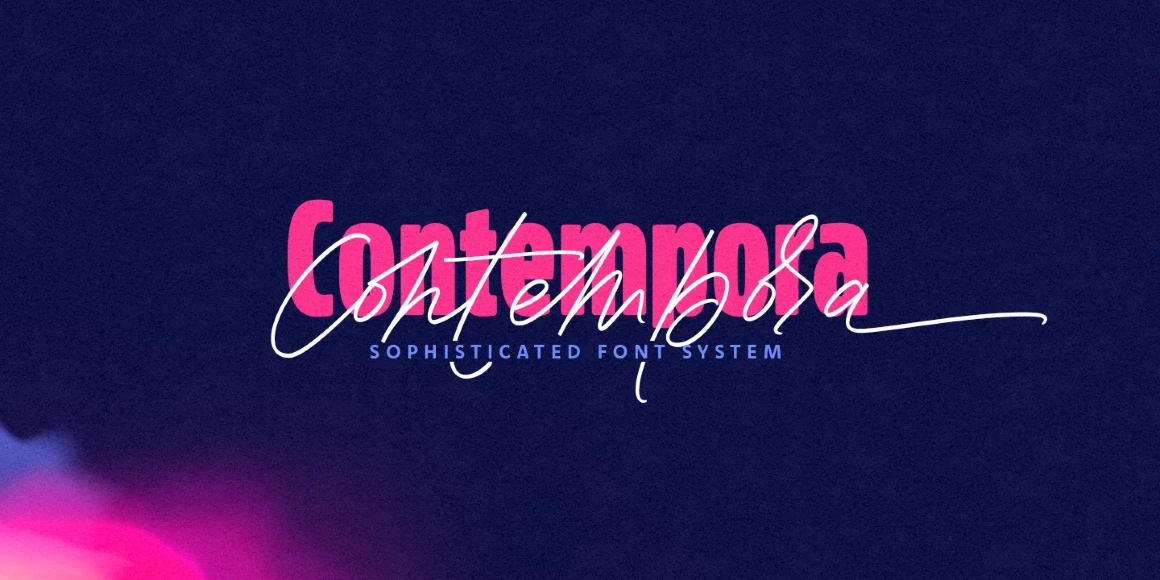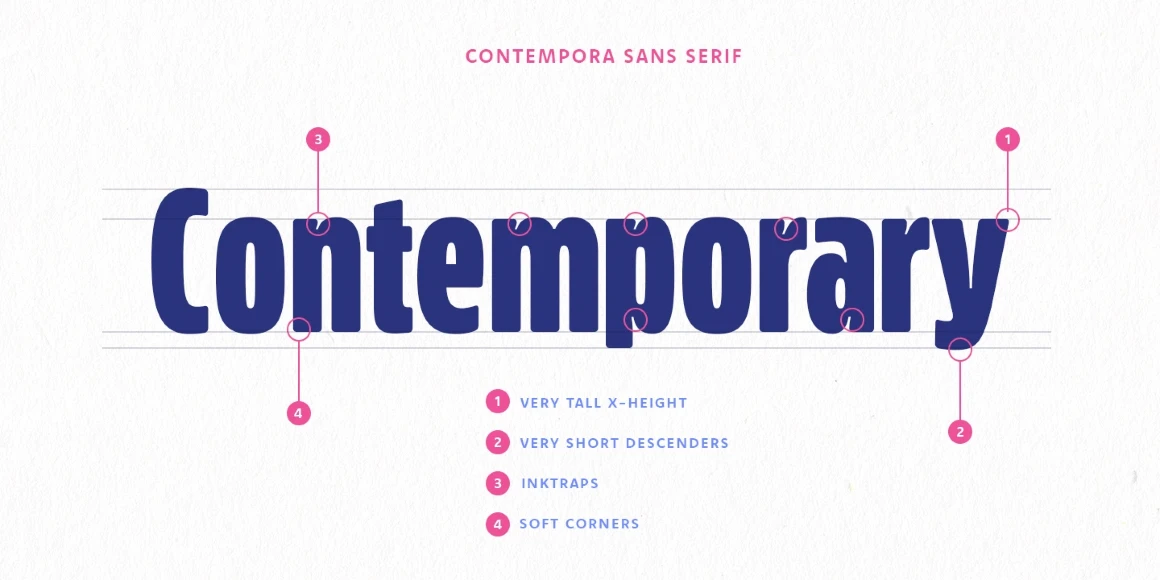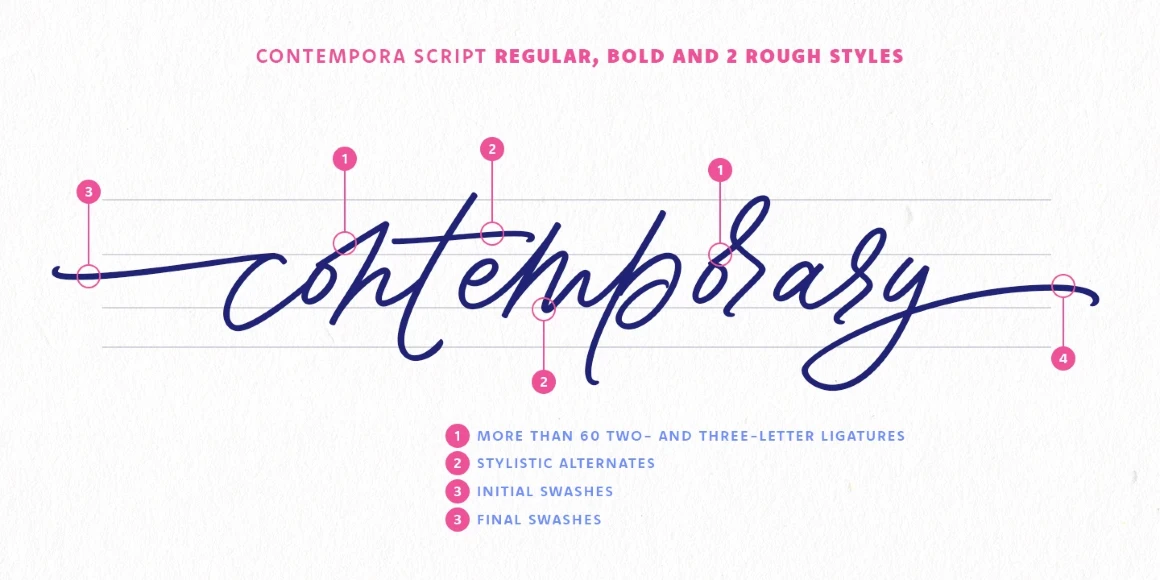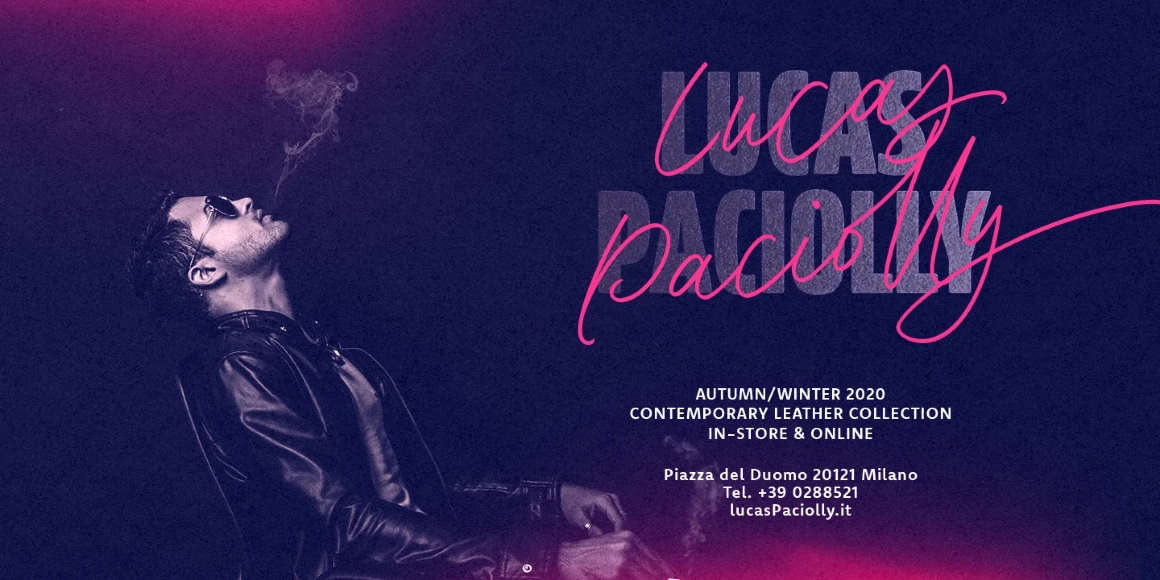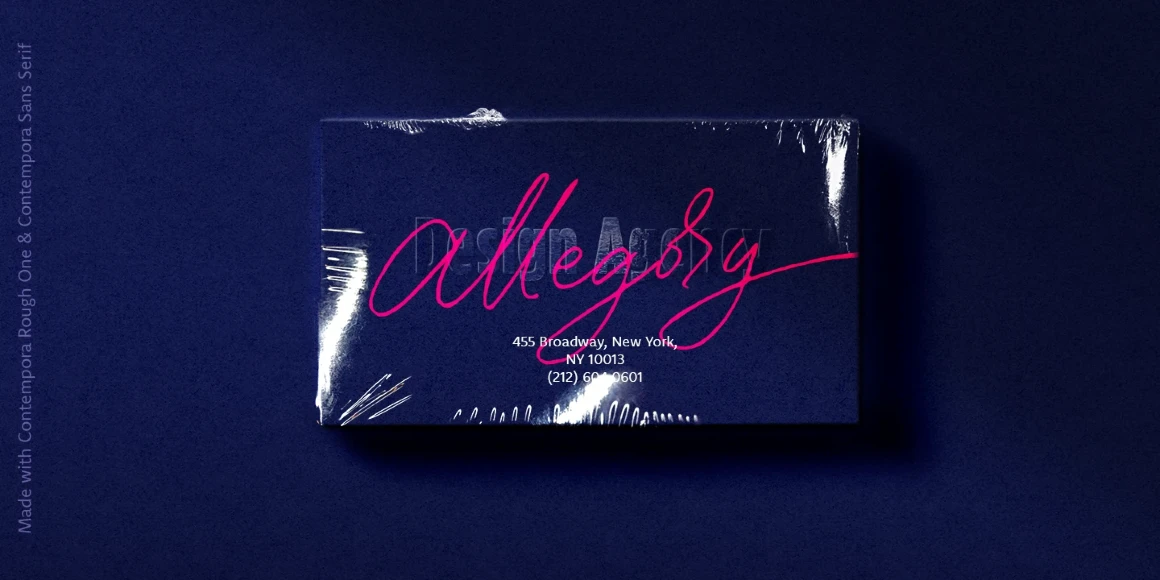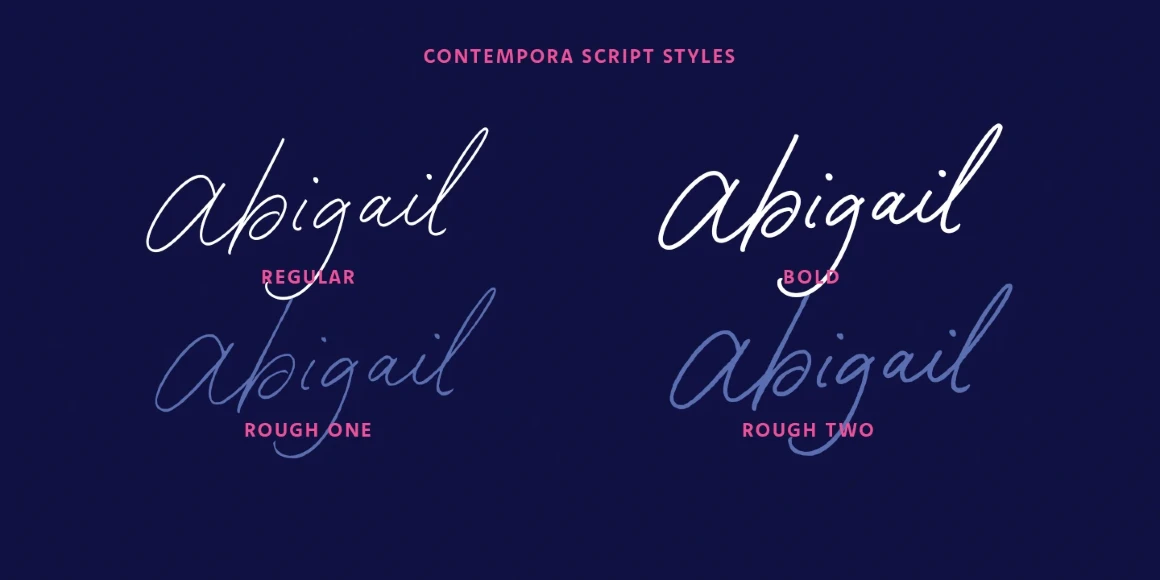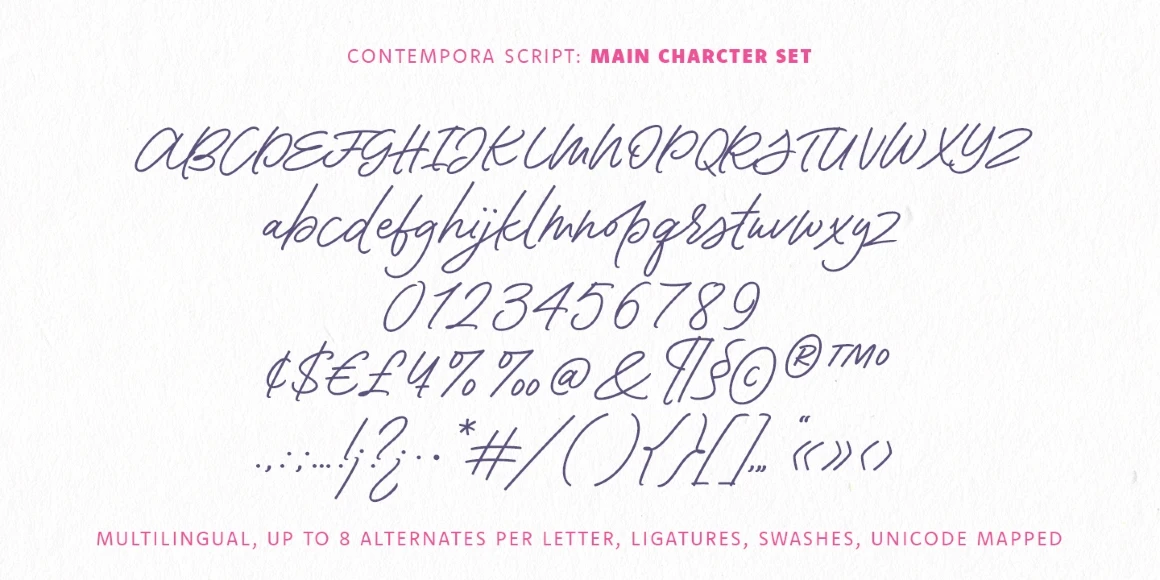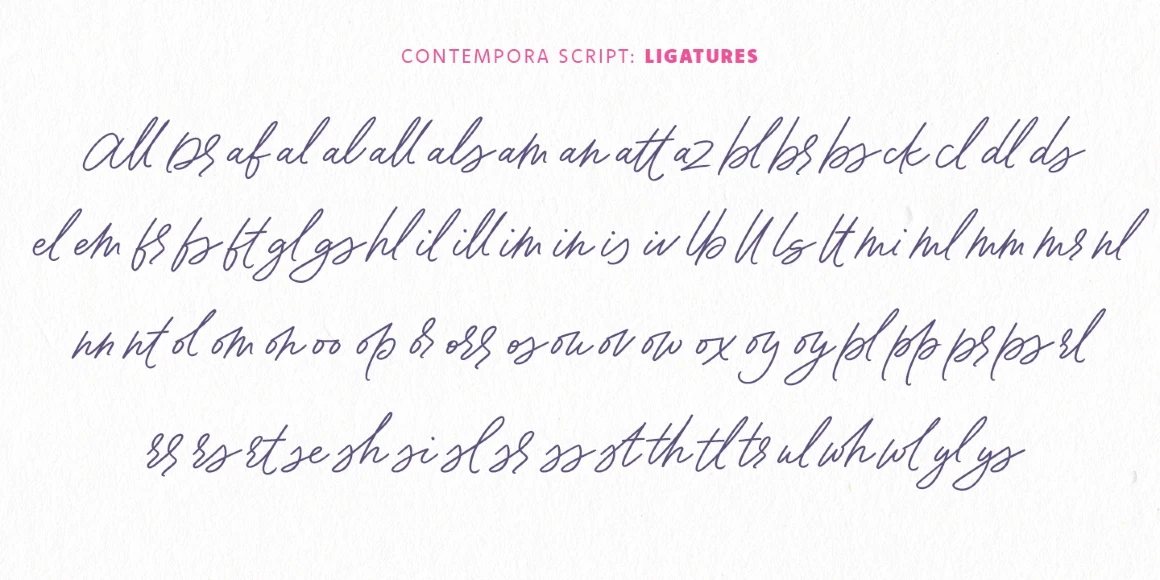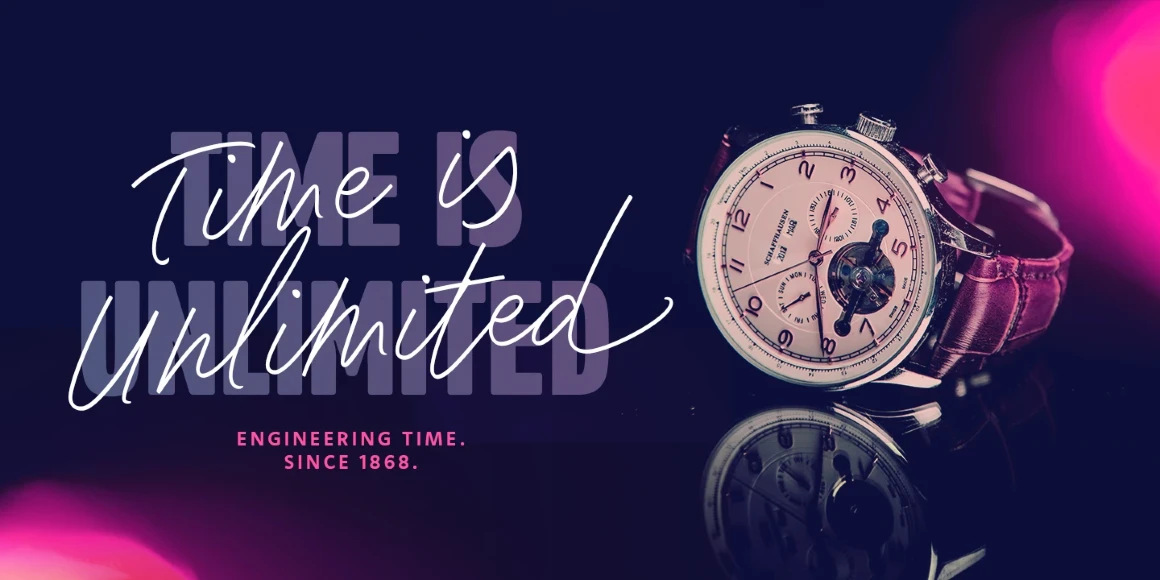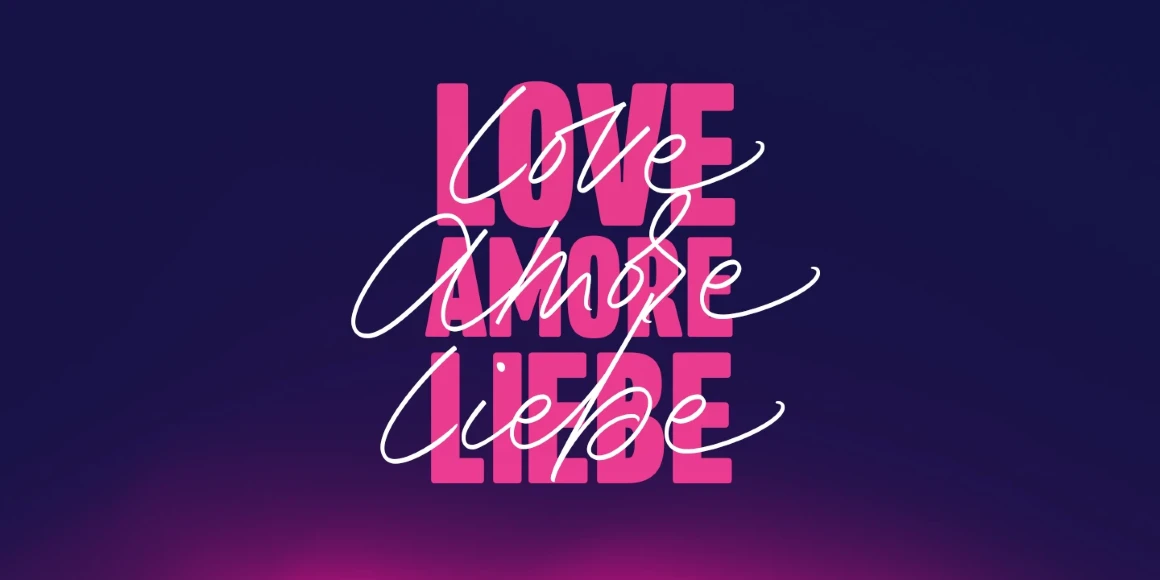
Contempora Sans
By Elena Genova
Contempora Sans Bold Condensed
Contempora is a modern, sophisticated font family that contains one block condensed sans serif with elegant ink traps and a set of signature scripts in 4 different styles: Regular, 2 Rough styles (for the authentic handwritten look and feel), and Bold (ideal for small text).